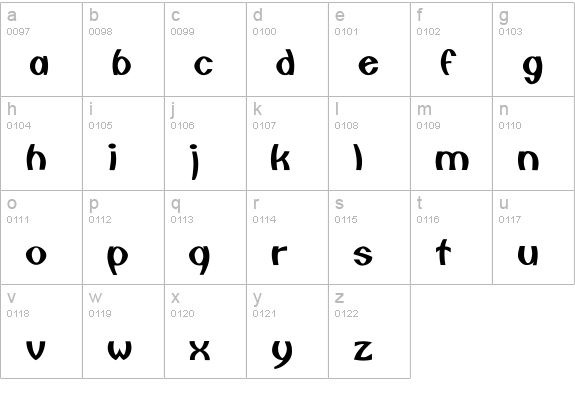
Karibown Font Details
Introducing Karibown, a captivating and versatile font that effortlessly combines modern sophistication with a touch of timeless elegance. This font is the perfect choice for those seeking a unique and eye-catching design element to elevate their creative projects to the next level. Karibown boasts a stunning visual appeal, with its sleek lines and beautifully crafted letterforms. Each character exudes a sense of grace and style, making it suitable for a wide range of applications, from branding and logo design to invitations, packaging, and more. What sets Karibown apart is not only its impeccable design, but also the fact that it is freely available to download at FontsMarket.com. Yes, you read that right - this exceptional font can be yours without any cost. Now you can enhance your designs without breaking the bank. Whether you are a professional designer or a creative enthusiast, Karibown will undoubtedly become an invaluable asset in your font collection. Its versatility allows it to adapt to various projects, effortlessly amplifying the visual impact and leaving a lasting impression on your audience. So why wait? Experience the beauty and versatility of Karibown today. Download it for free at FontsMarket.com and unlock a world of design possibilities that will undoubtedly leave a lasting impression. Elevate your creativity with Karibown - where sophistication meets accessibility.